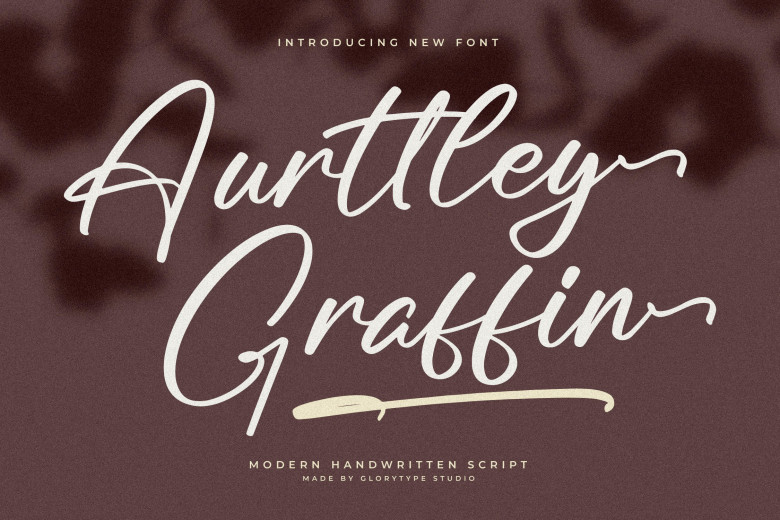
Aurttley Graffin Font
Aurttley Graffin Modern Handwritten Script this lovely experience was designed and published by Glorytype Studio. It was developed for any project that needs a beautiful script taste. such as logos, branding projects, homeware designs, product packaging, mugs, quotes, posters, shopping bags, t-shirts, book covers, name cards, invitation cards, greeting cards, label, photography, watermark, special events, and all your other lovely projects.
Aurttley Graffin Handwritten Script Font